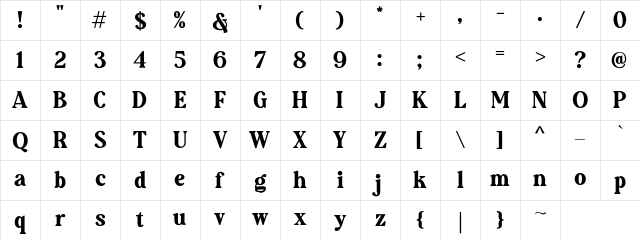
Augillion DEMO Regular
Foundry: Sarid Ezra
Designer: Sarid Ezra
Design Context for Augillion DEMO
Augillion DEMO is a composed and adaptable typeface that performs quietly and consistently across a wide range of design contexts.